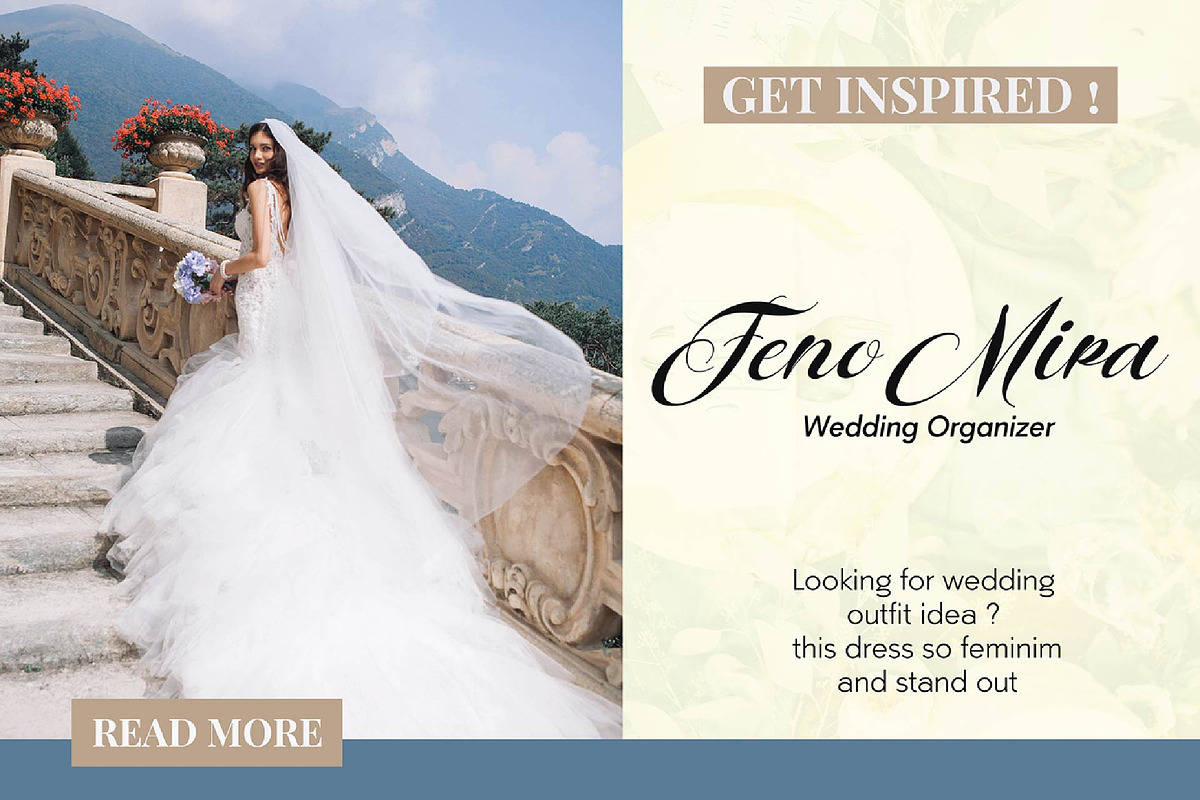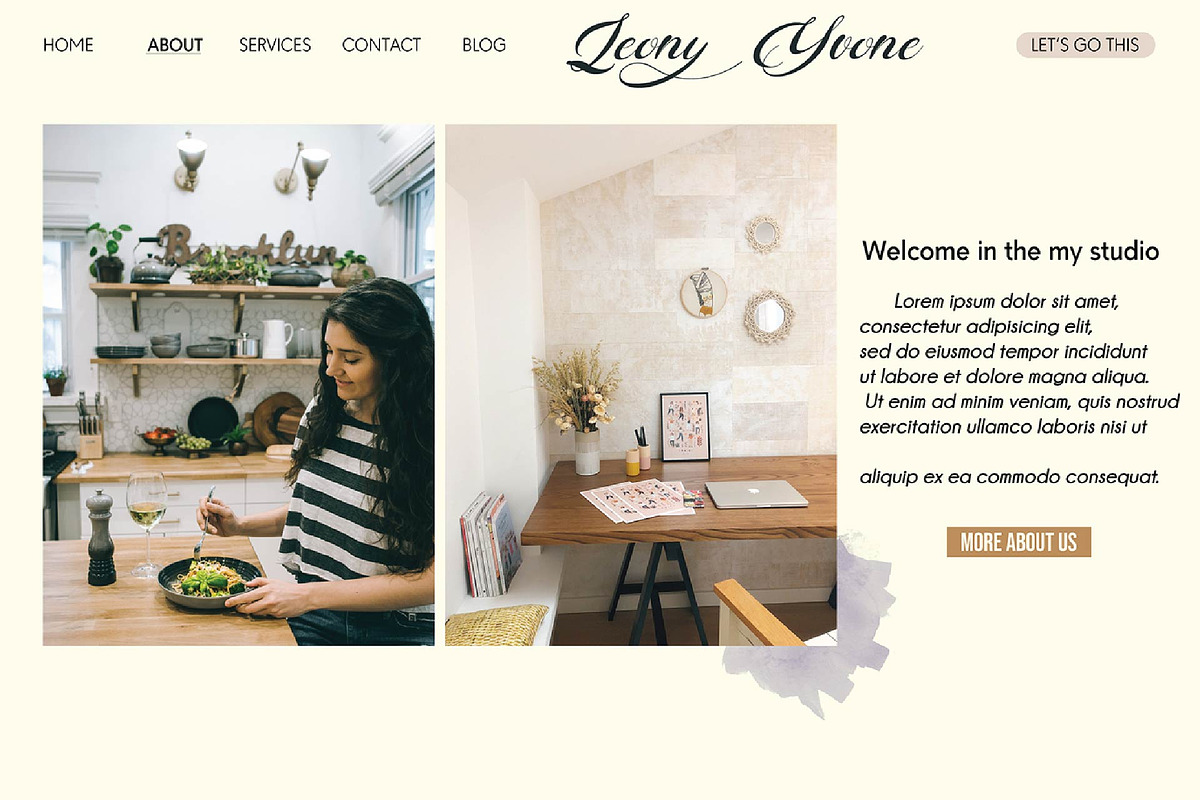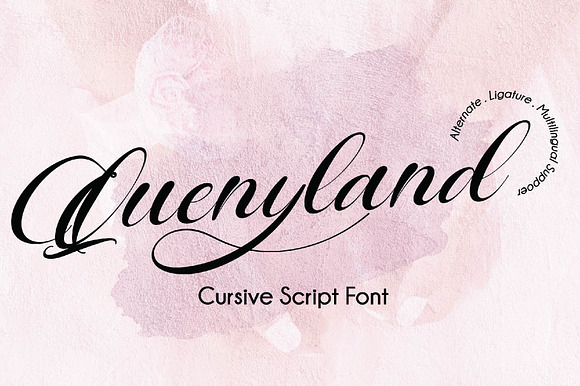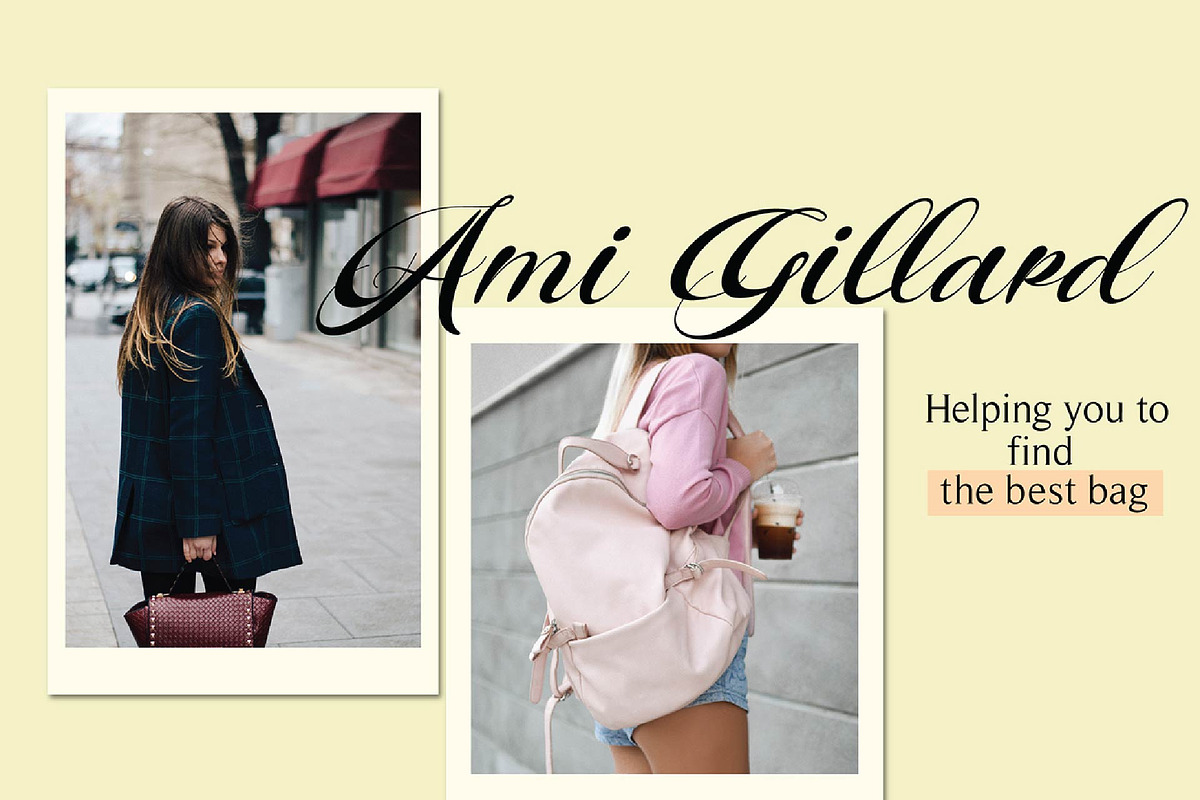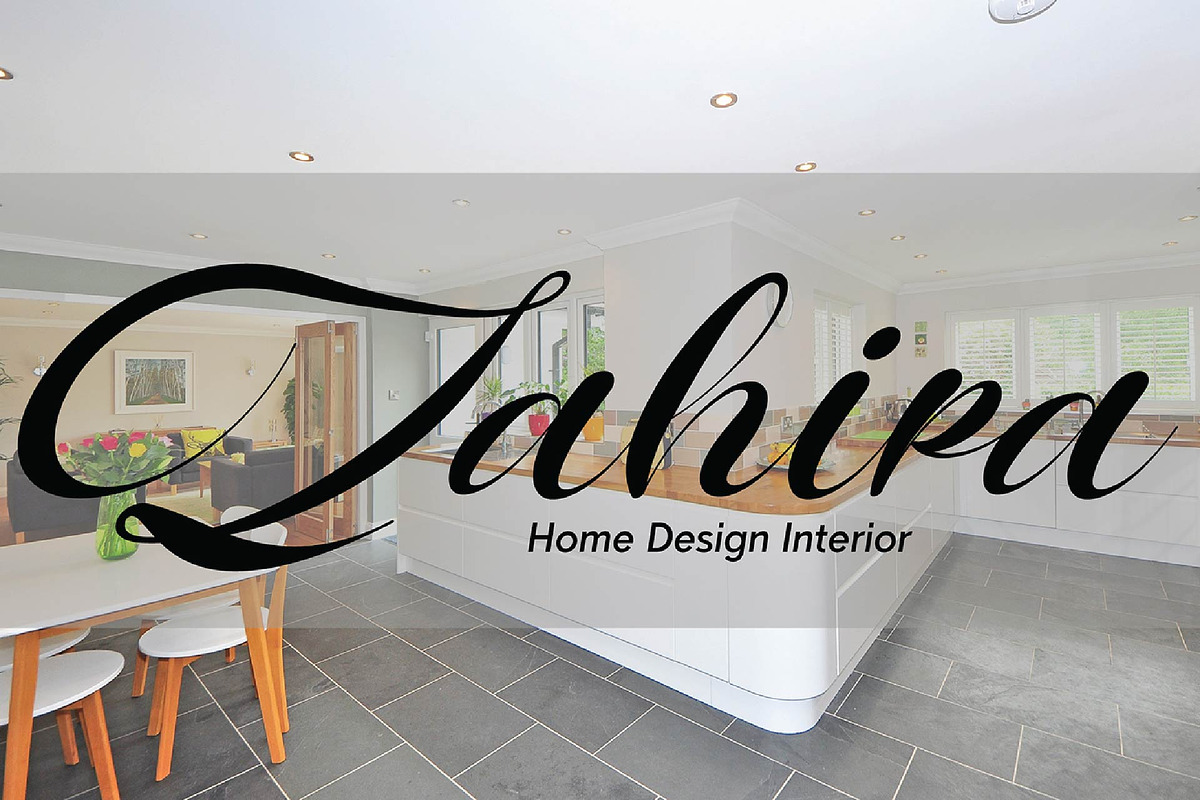
Quenyland - Cursive Script Font
Quenyland - Cursive Script Font with a calligraphy style, So beautiful on invitation like greeting cards, branding materials, business cards, quotes, posters, and more!
The alternative characters were divided into several features such as Stylistic Sets, Stylistic Alternates, Contextual Alternate, SWASH and Ligature.
- Alternates and Ligatures